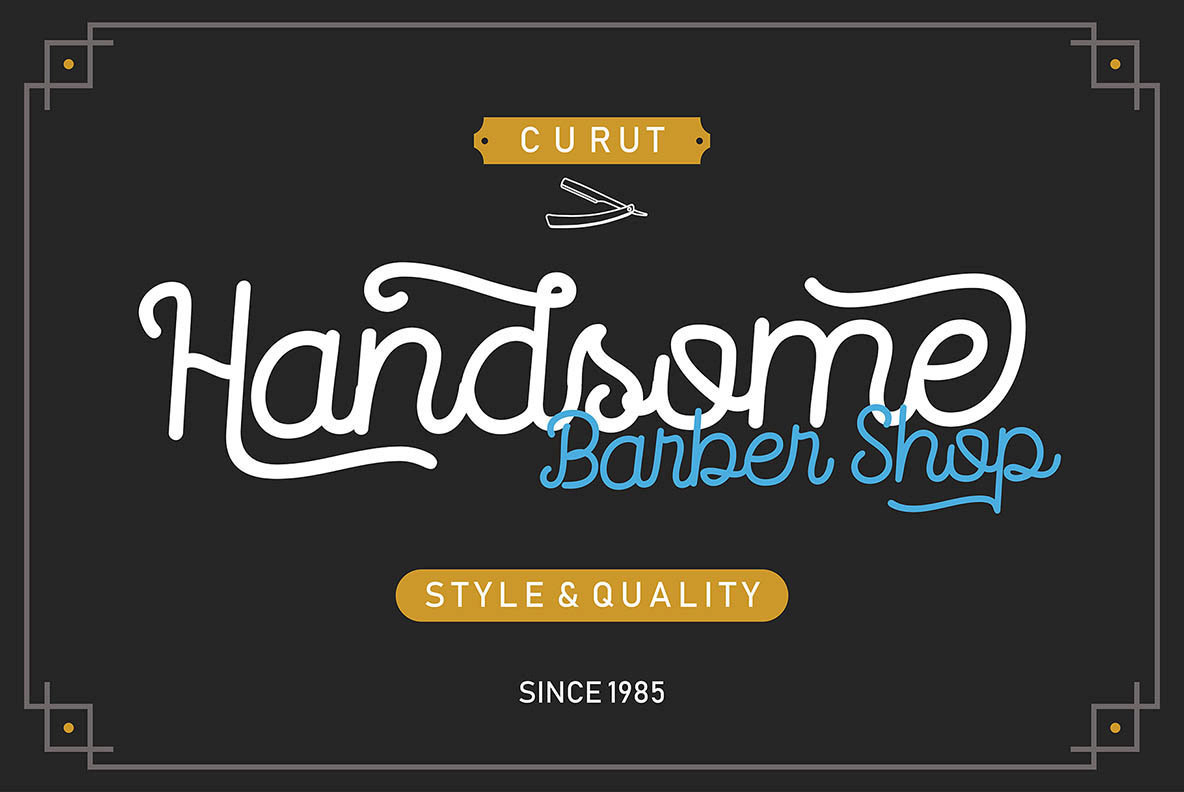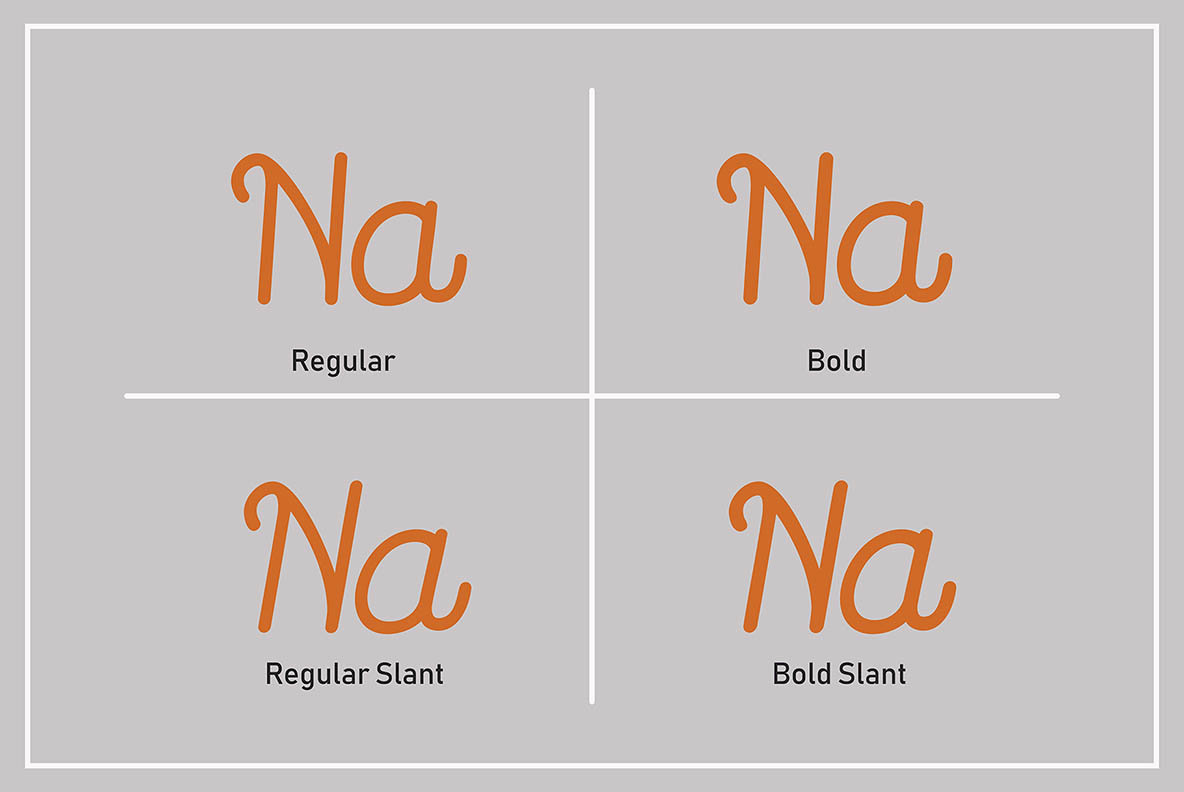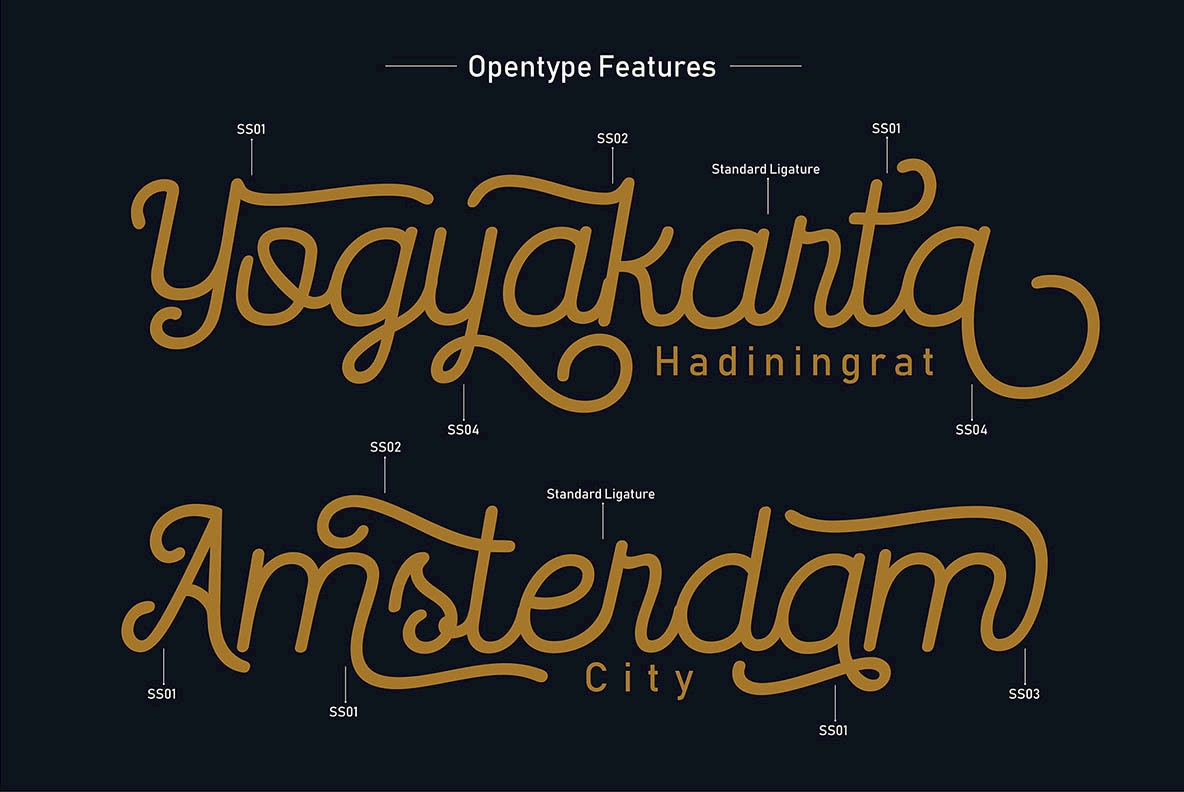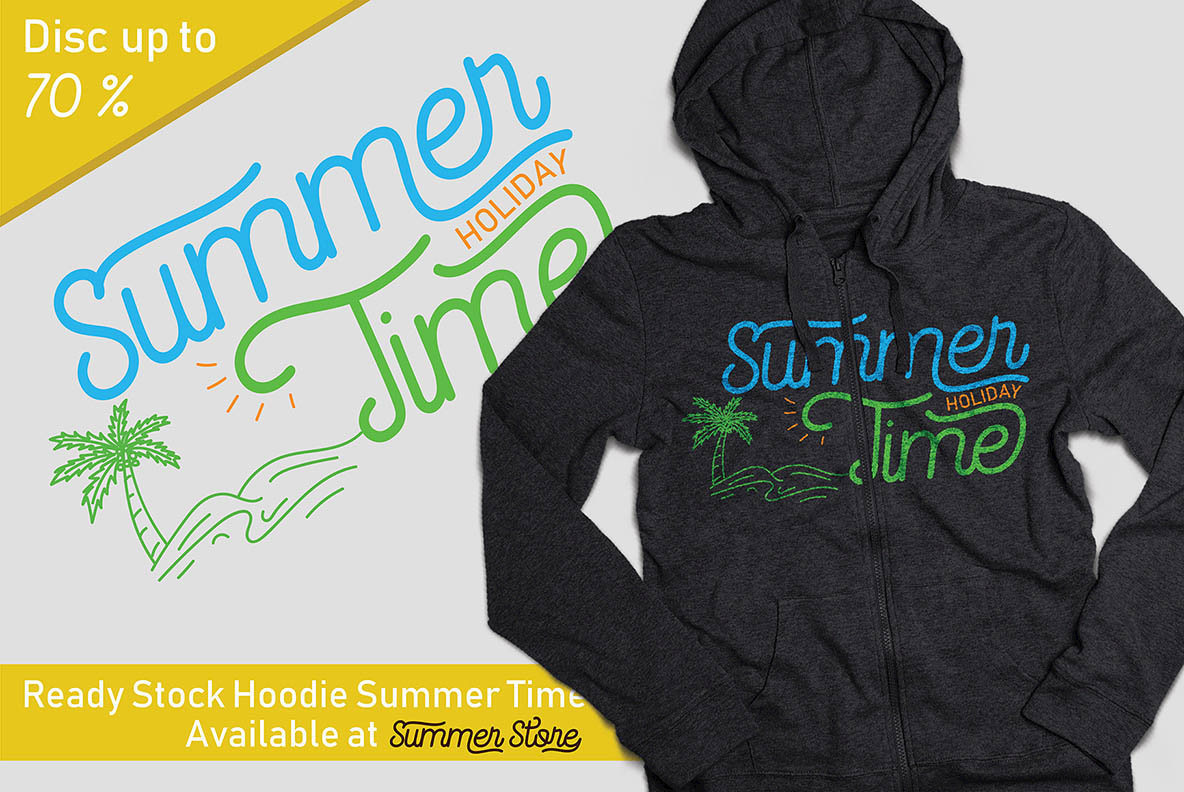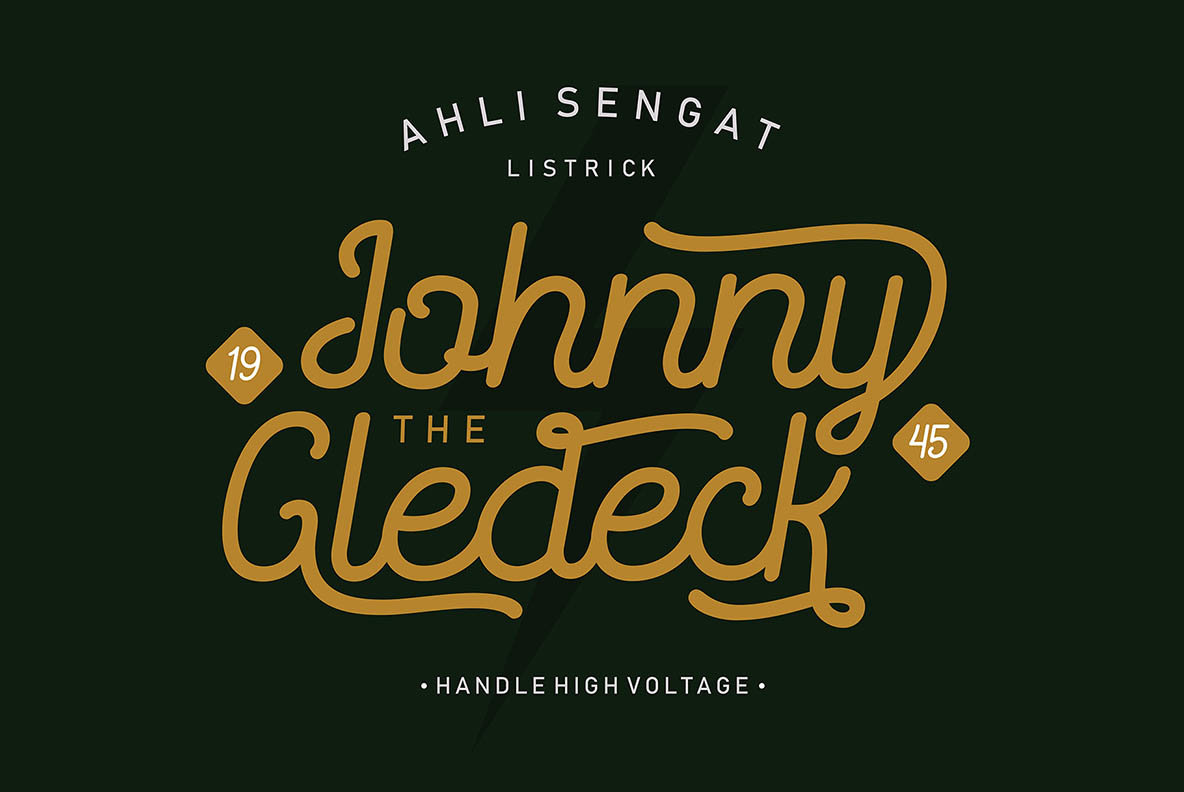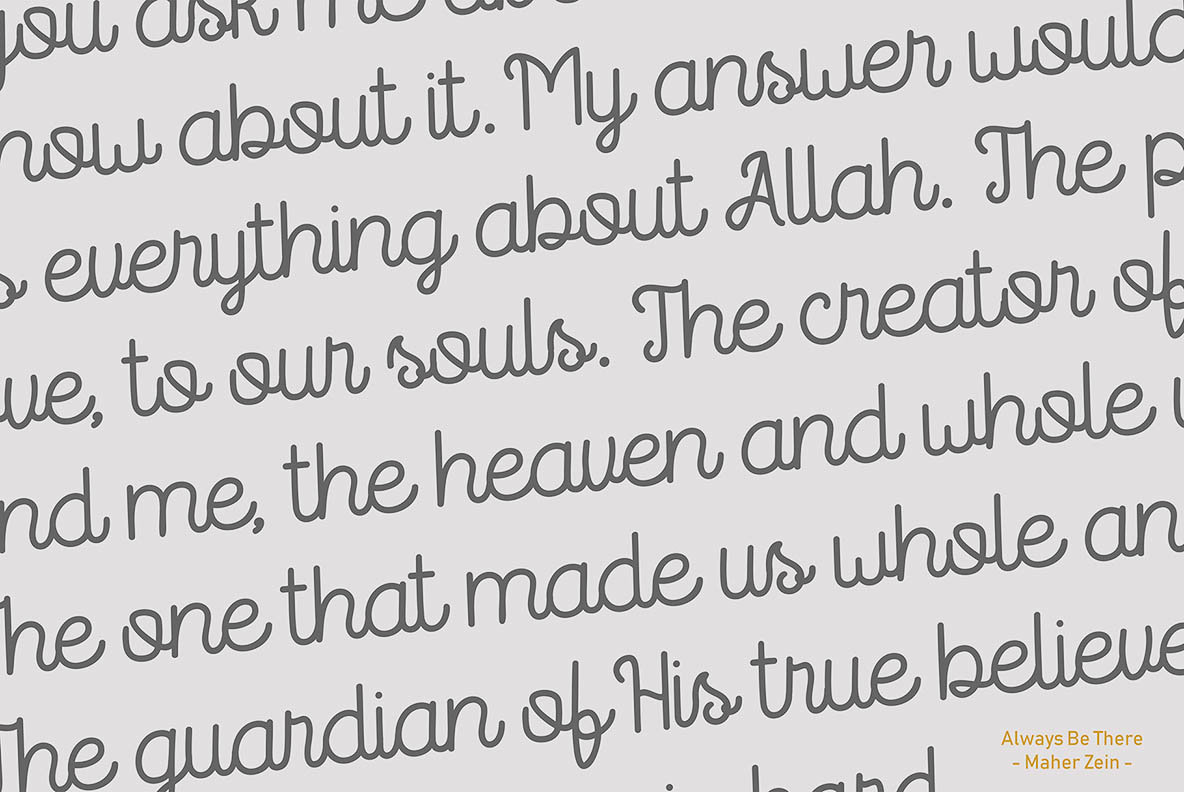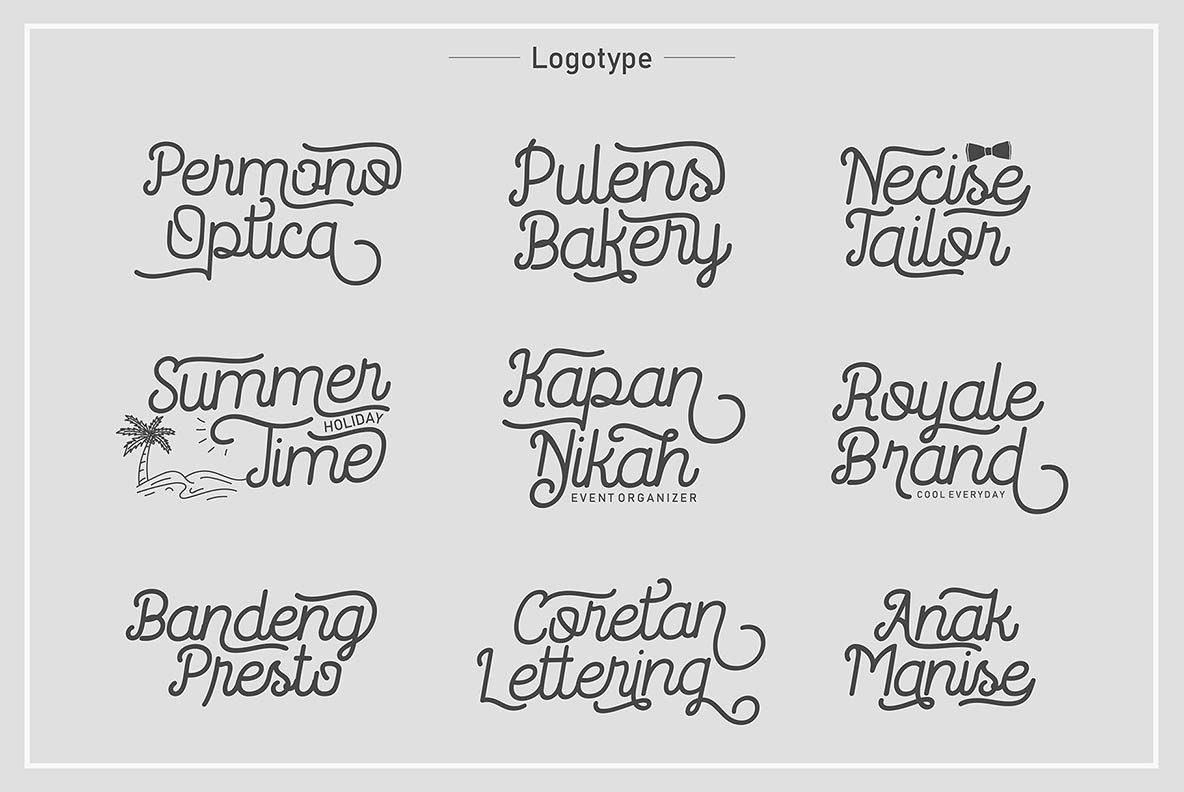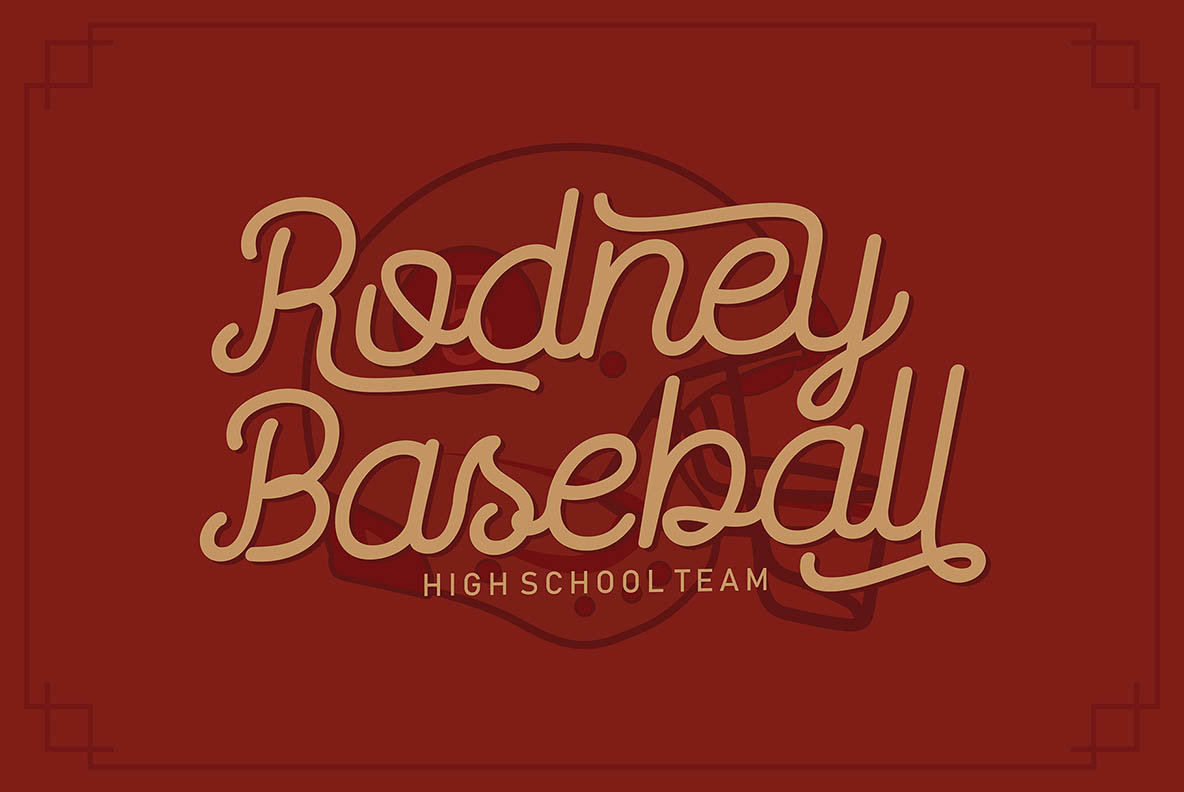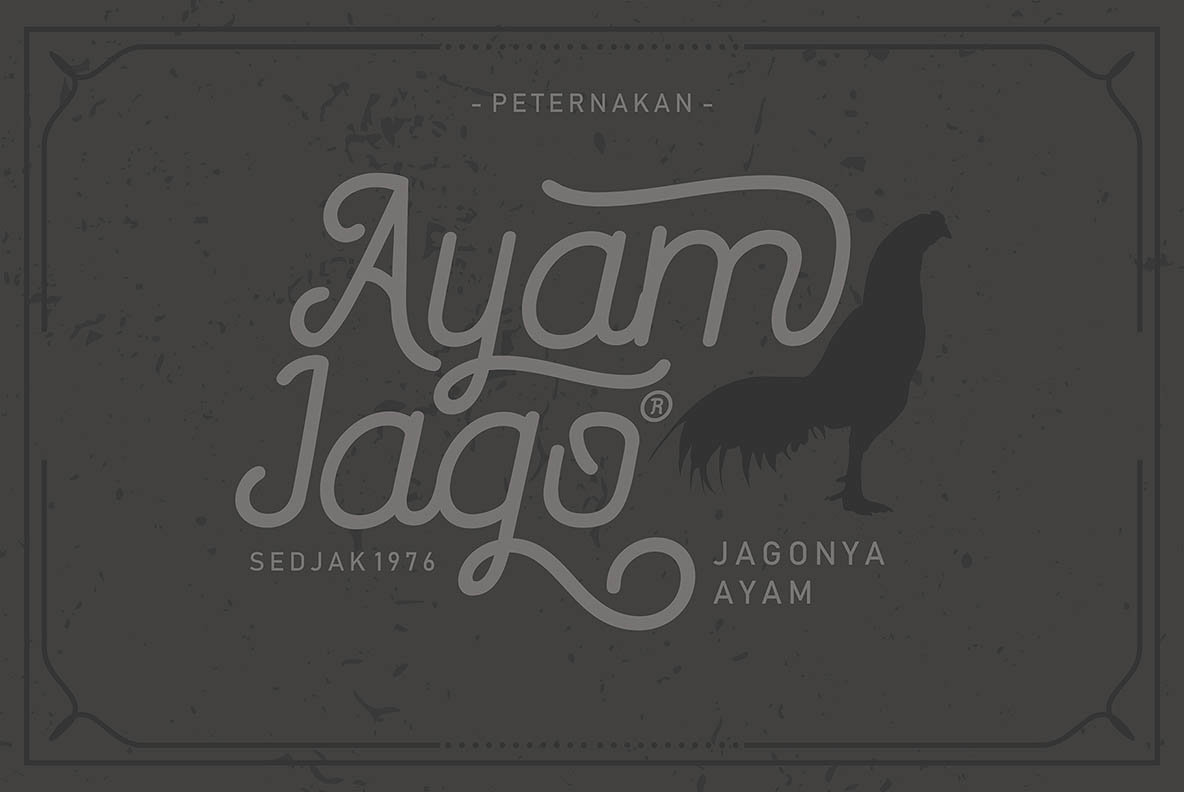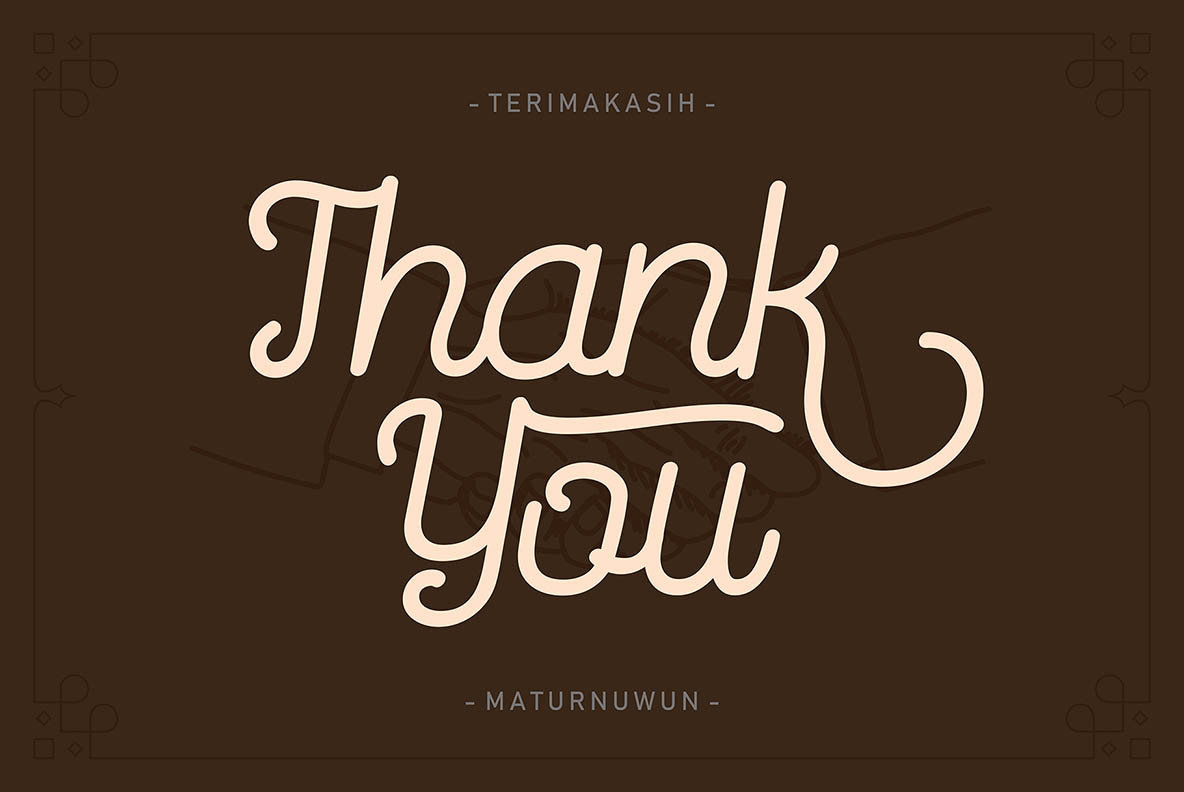
Routerline: Versatile Script Monoline in Four Styles
Routerline, a refined script monoline font, offers designers an elegant tool for diverse applications. Its sleek lines seamlessly adapt to various projects, promising a harmonious blend of formality and versatility.
• Four Distinct Styles — Provide flexibility in design.
• Multilingual Characters — Support global communication.
• Ligature and Alternate Options — Enhance creative expression.
Ideal for quotes, clothing designs, vintage logos, labels, posters, and packaging, Routerline caters to a wide array of creative projects.